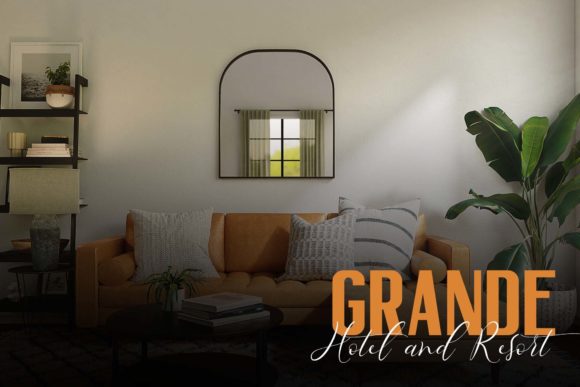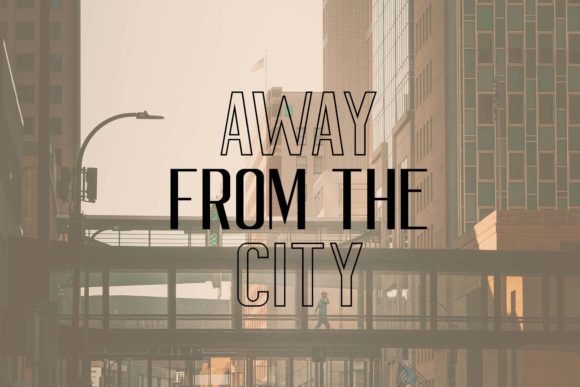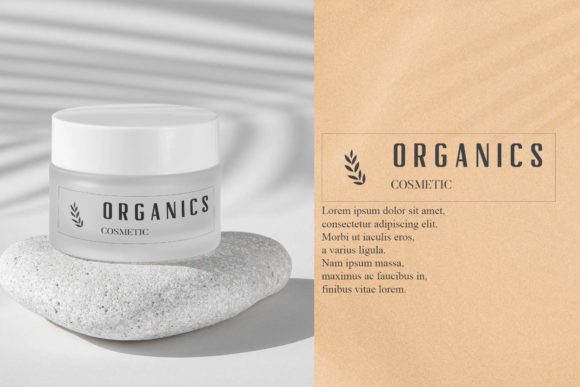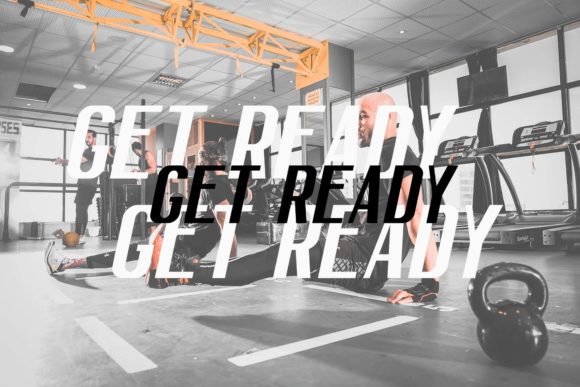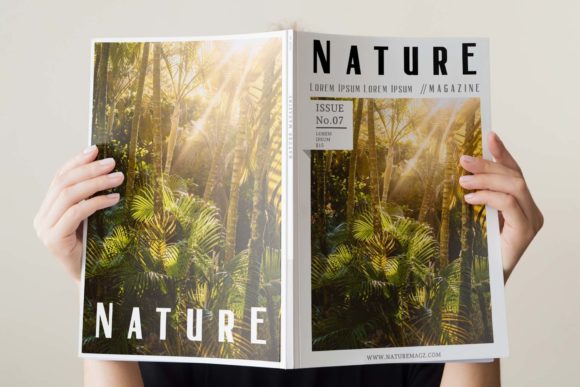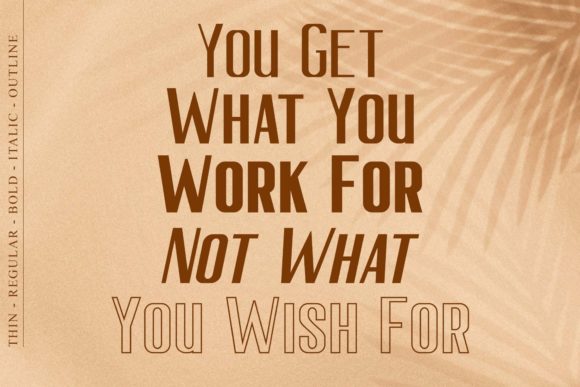
Introducing Equalizer Font: A Modern Sans Serif Family for Every Design Need
In the world of typography, finding the right font can make all the difference in the success of a design project. A font that is both visually appealing and versatile can elevate a design from good to great. This is where Equalizer Font comes in – a modern sans serif family designed to provide a range of choices for designers and crafters. With its variety of weights, Equalizer Font is the perfect solution for finding the best typographic color for your project.
What is Equalizer Font?
Equalizer Font is a modern sans serif family that boasts a range of weights, making it an ideal choice for various design applications. The font family is designed to provide a clean and minimalist look, making it perfect for both digital and print designs. Whether you’re working on a website, brochure, or business card, Equalizer Font has got you covered.
Key Features of Equalizer Font
- Variety of Weights: Equalizer Font offers a range of weights, from light to heavy, allowing designers to choose the perfect font for their project. Lighter weights are ideal for body text, while heavier weights are perfect for high-impact headlines.
- Modern Sans Serif Design: Equalizer Font features a modern sans serif design, making it perfect for contemporary designs that require a clean and minimalist look.
- Versatile: Equalizer Font is designed to be versatile, making it suitable for various design applications, including digital and print designs.
Benefits of Using Equalizer Font
So, why choose Equalizer Font for your design project? Here are just a few benefits of using this versatile font family:
- Improved Readability: Equalizer Font’s clean and minimalist design makes it easy to read, even at small font sizes.
- Enhanced Visual Appeal: The font family’s modern design and range of weights make it perfect for creating visually appealing designs that grab attention.
- Time-Saving: With Equalizer Font, designers can save time searching for the perfect font, as this font family provides a range of choices in one package.
Best Use Cases for Equalizer Font
Equalizer Font is suitable for various design applications, including:
- Body Text: Lighter weights of Equalizer Font are perfect for body text, providing a clean and readable font for paragraphs and articles.
- Headlines: Heavier weights of Equalizer Font are ideal for high-impact headlines, making them perfect for attention-grabbing titles and headings.
- Digital Designs: Equalizer Font is perfect for digital designs, including websites, mobile apps, and social media graphics.
- Print Designs: The font family is also suitable for print designs, including brochures, business cards, and posters.
In conclusion, Equalizer Font is a modern sans serif family that provides a range of choices for designers and crafters. With its variety of weights, clean design, and versatility, Equalizer Font is the perfect solution for finding the best typographic color for your project. Whether you’re working on a digital or print design, Equalizer Font is sure to elevate your design from good to great.